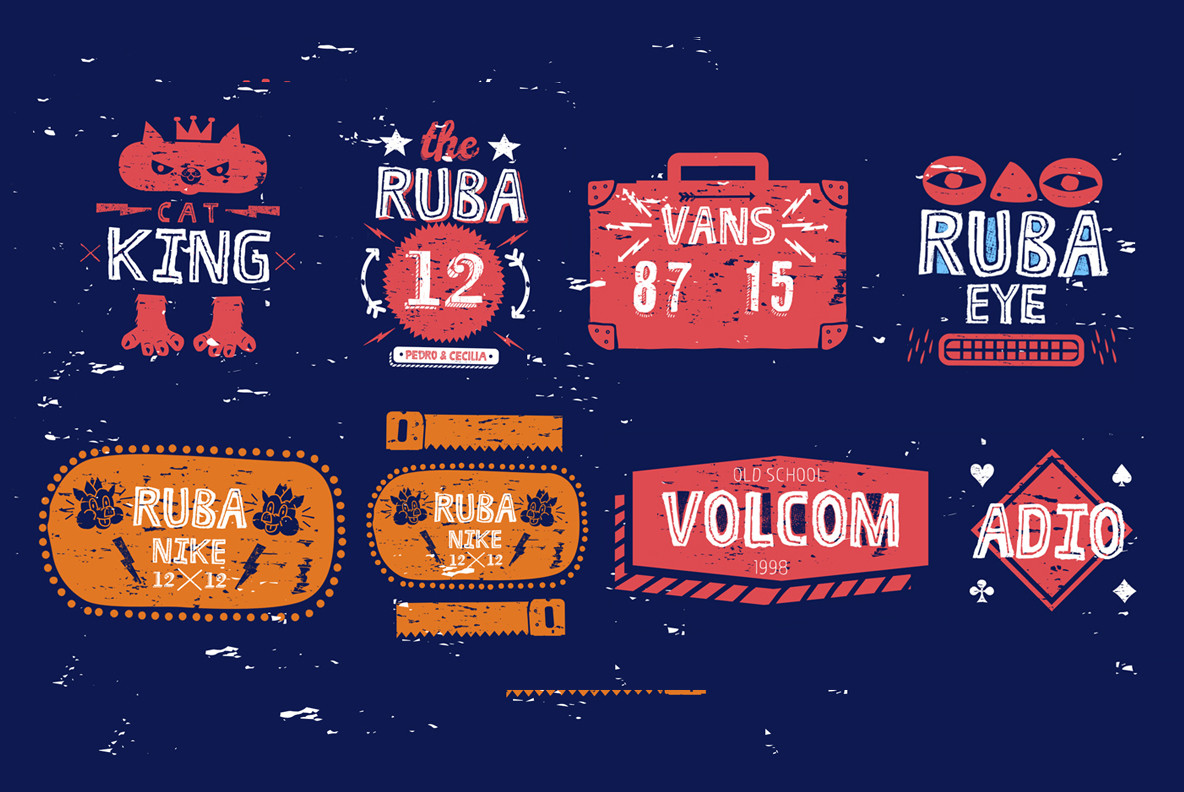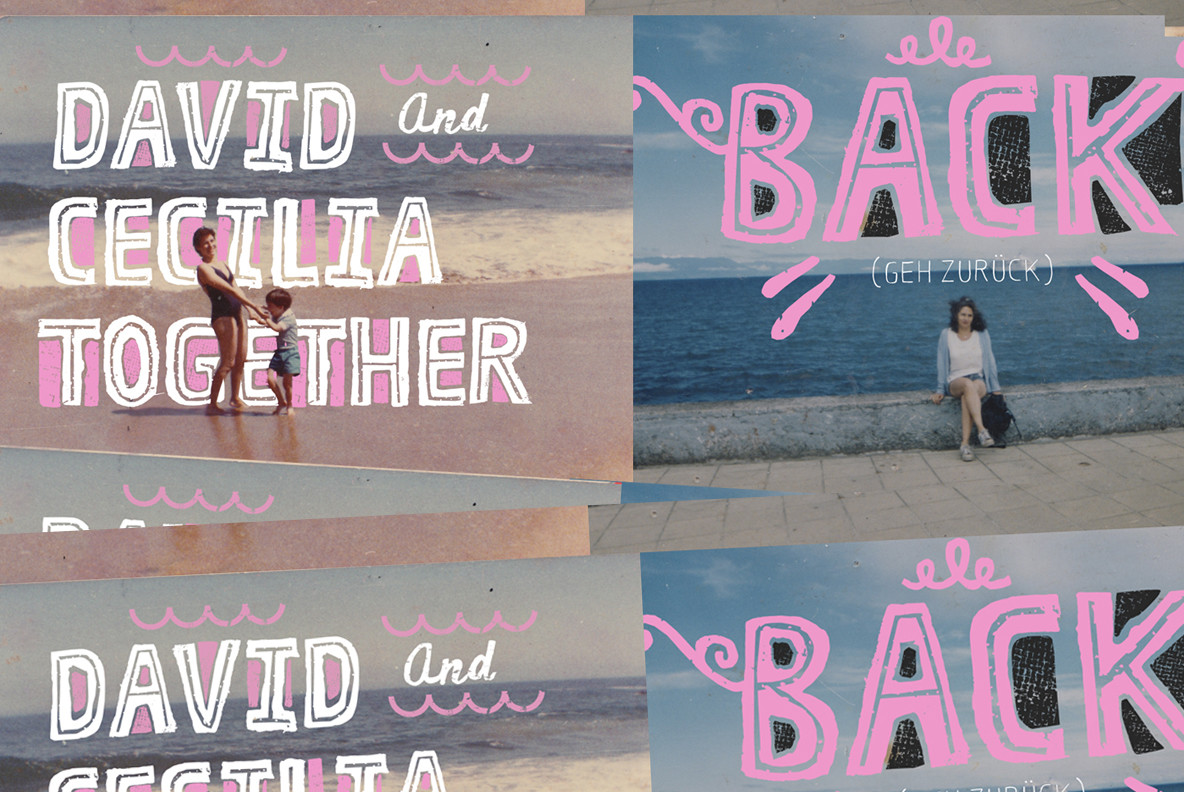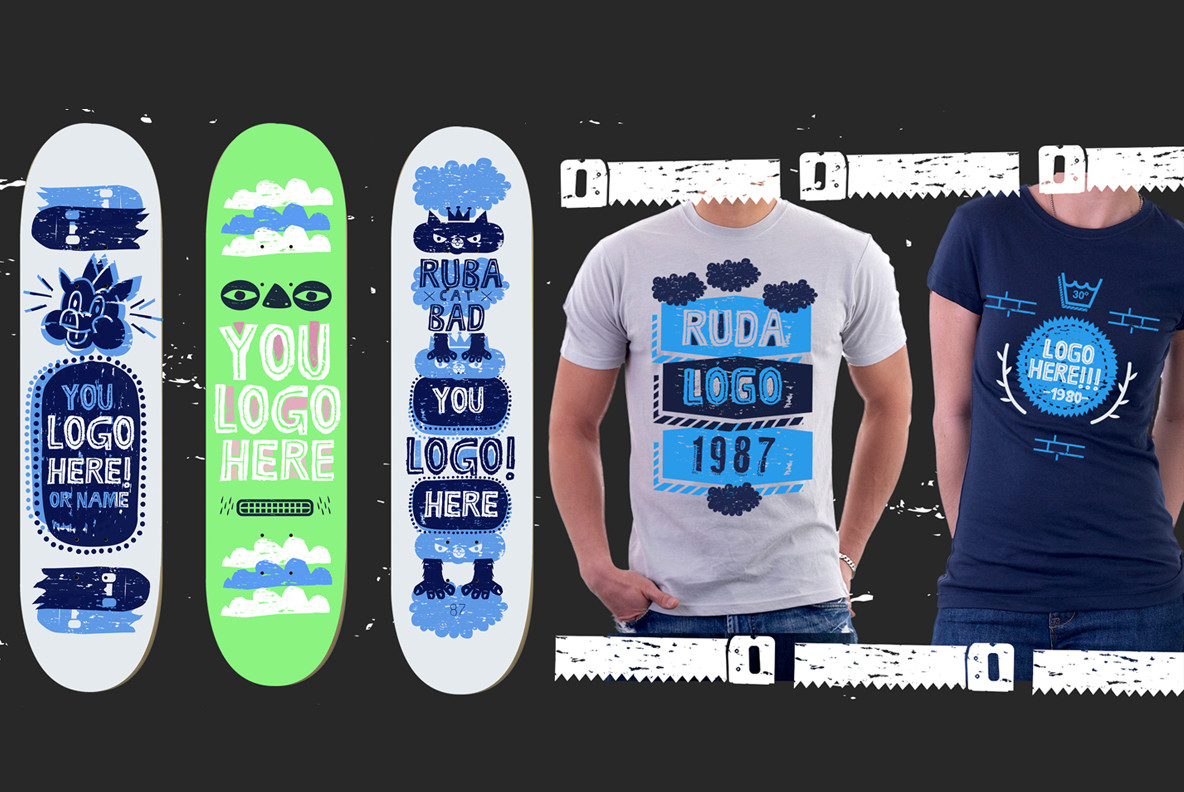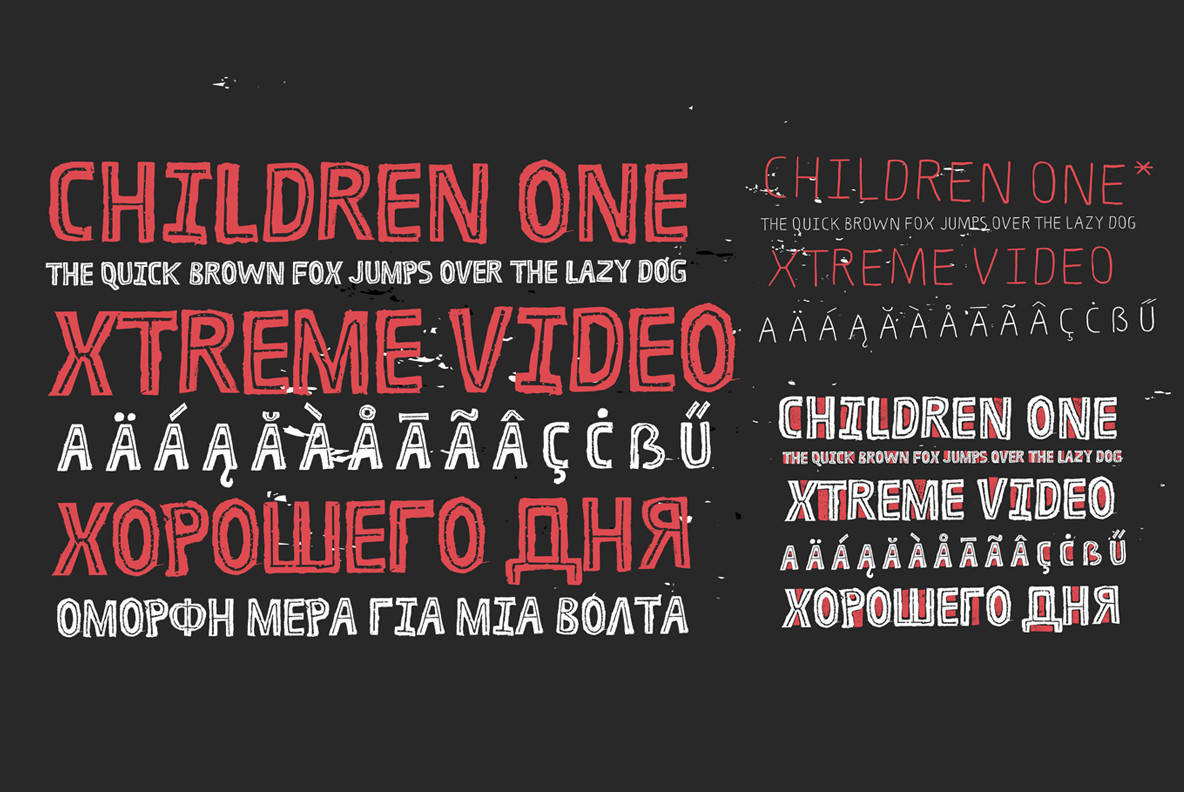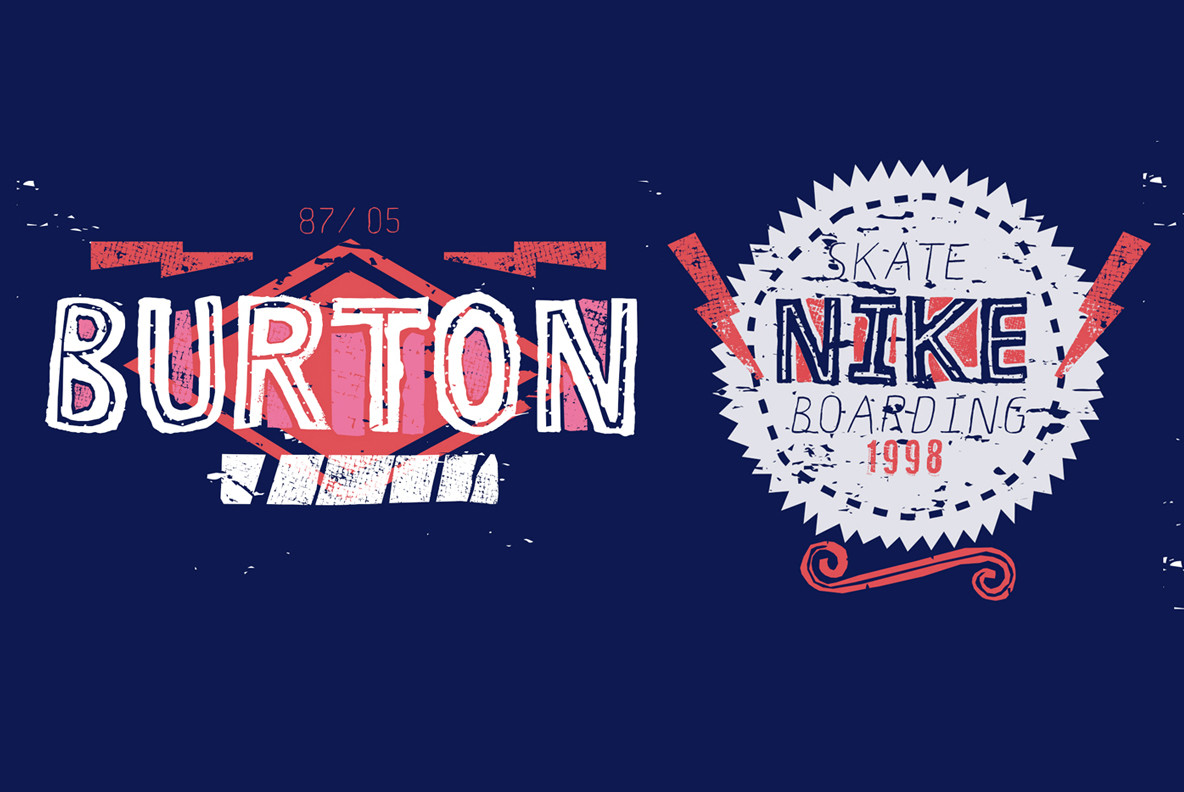
Ruba Style Font
Ruba Style is a decorative font designed with inspirations in retro, skate and biking.
Ruba Style contains numerous different design styles, details listed below:
First Group
-Ruba Style 01 (Regular Version)
-Ruba Style Layer (typeface that helps power holders style ruba 01)
-Ruba Style Shadow (shadow)
Second Group
-Ruba One line (linear ornaments)
-Ruba Line two (linear ornaments with outline)
Third Group
Old Dingbat -Ruba 01 (dingbat designs based on 80-90 years old)
Old Dingbat -Ruba 02 (dingbat designs based on 80-90 years old)
Old Dingbat -Ruba 03 (dingbat designs based on 80-90 years old)
Old Dingbat -Ruba 04 (dingbat designs based on 80-90 years old)
Old Dingbat -Ruba 05 (dingbat designs based on 80-90 years old)
Fourth Group
-Ruba Numbers (set of special numbers)
-Ruba Words (be words help boost title)
-Ruba Xtra (thin typeface with Cyrillic and Greek alphabet, helps Ruba01)
-Ruba Xtra Italic (thin italic typeface that contains Cyrillic and Greek alphabet, helps Ruba01)